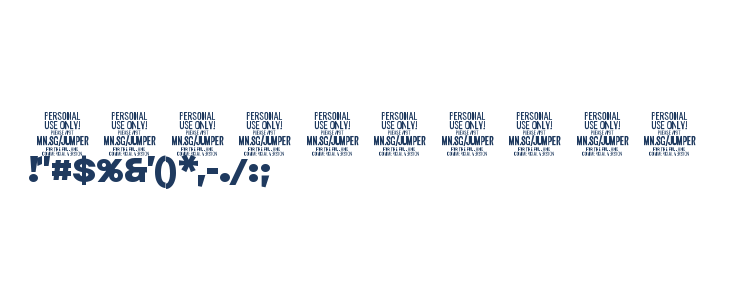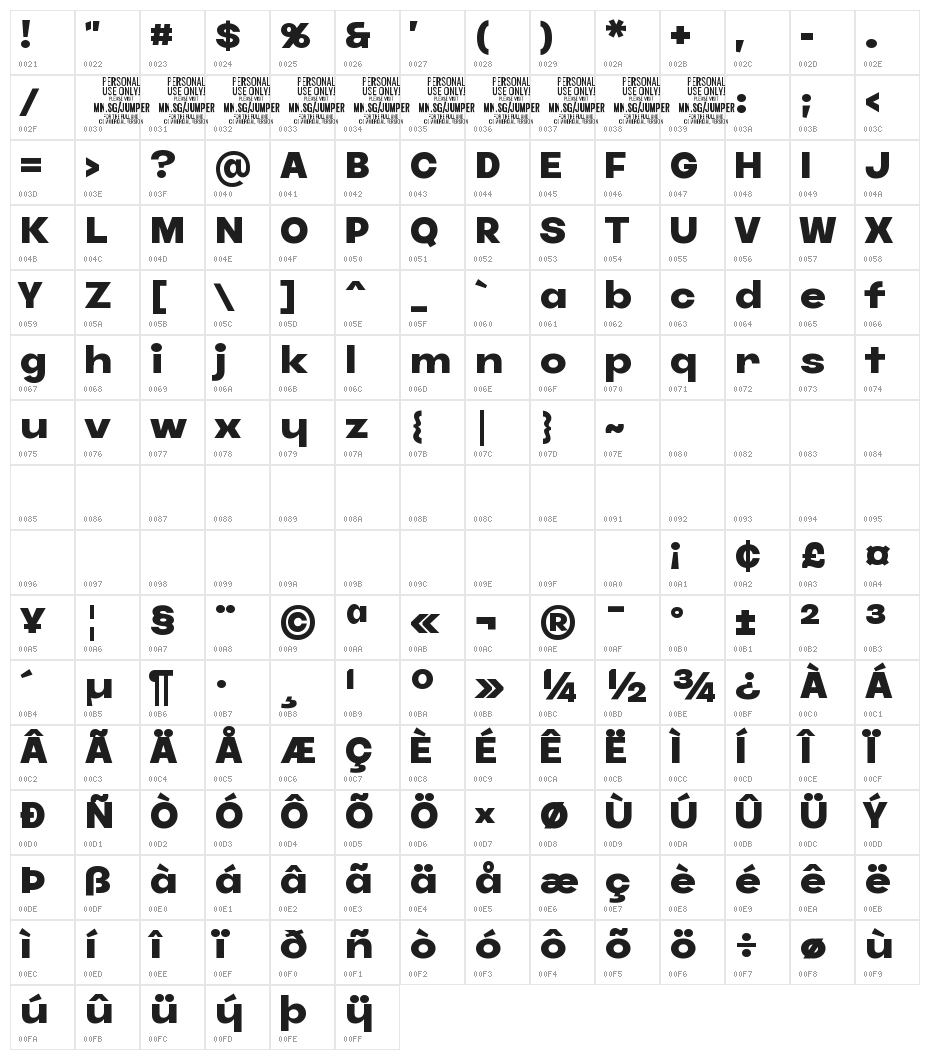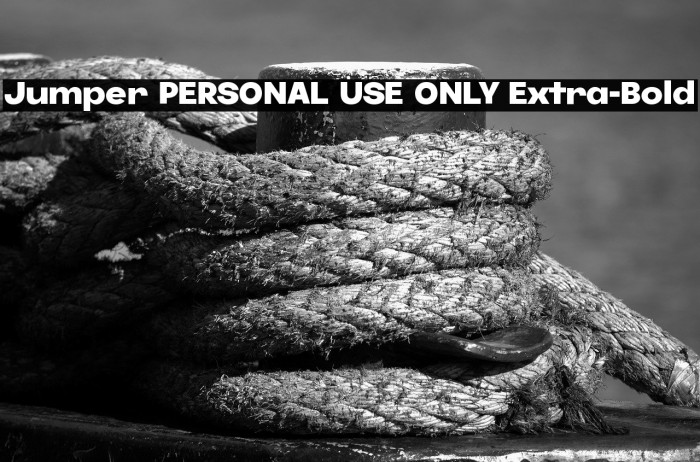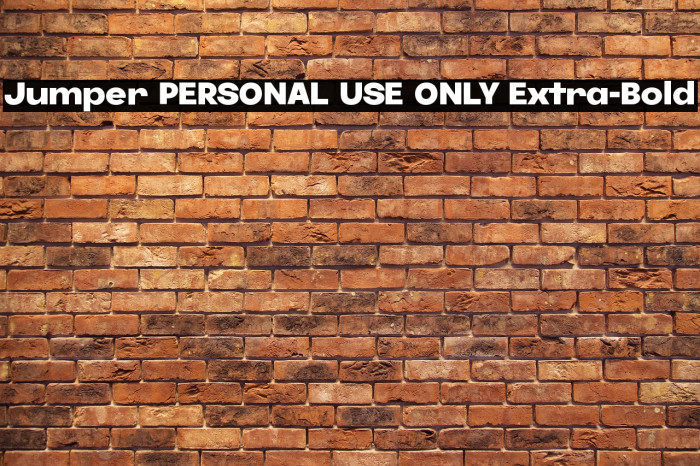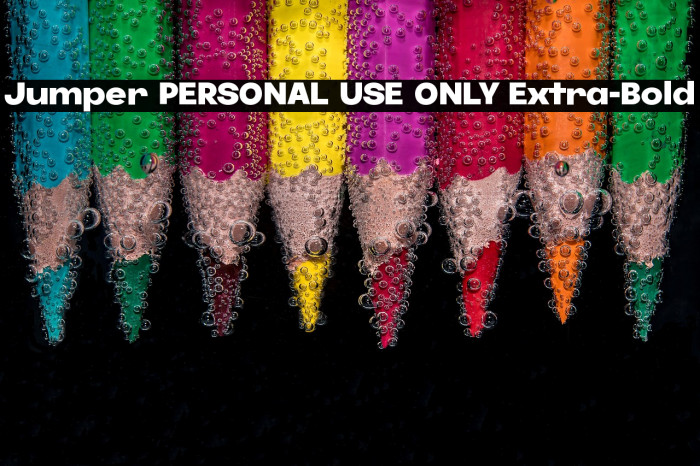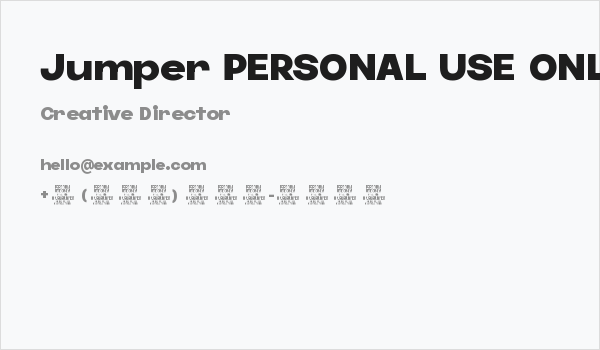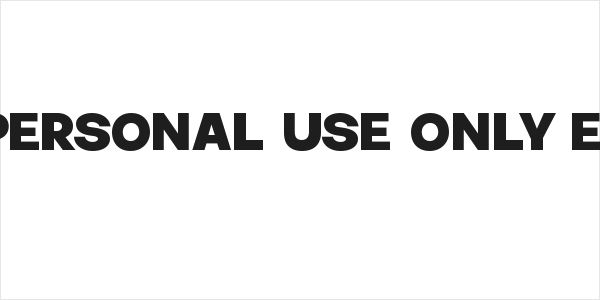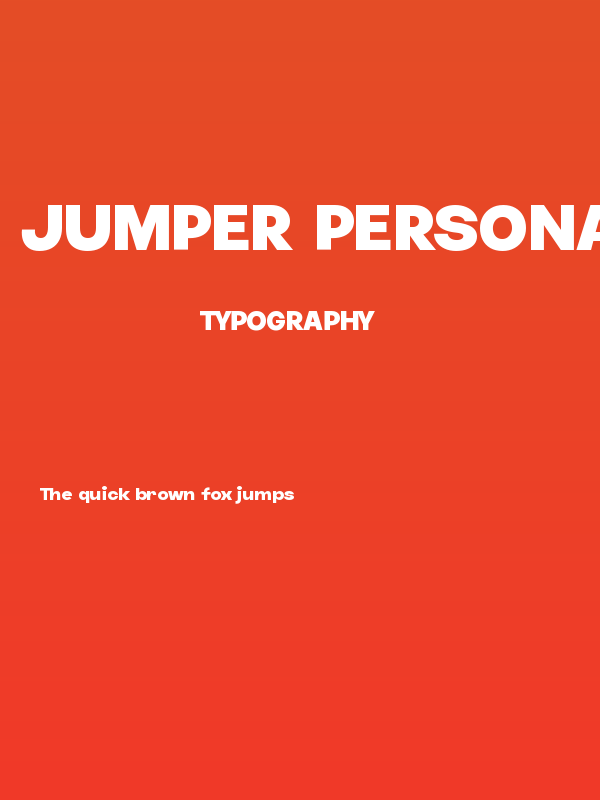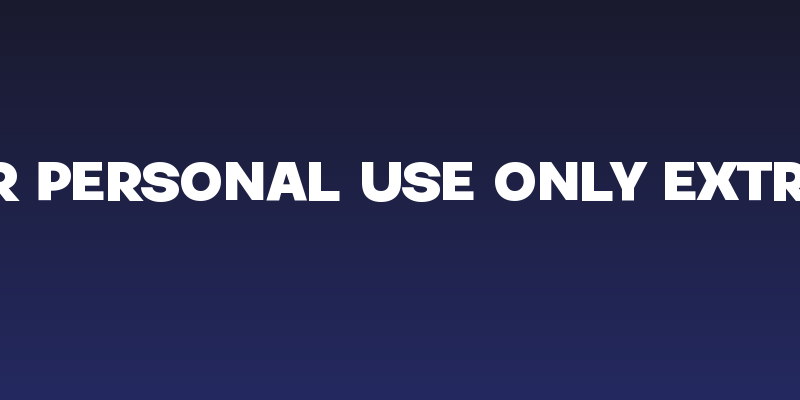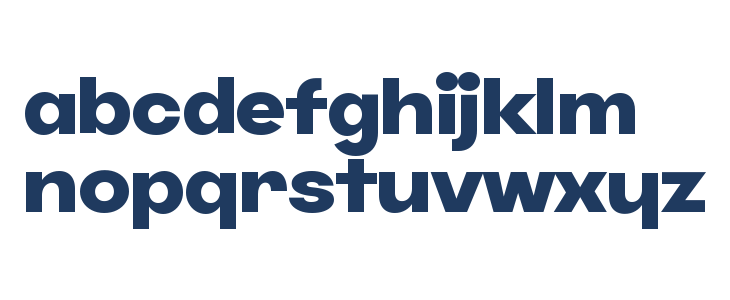
Jumper PERSONAL USE ONLY Extra-Bold Font
Jumper PERSONAL USE ONLY Extra-Bold Description
This font features a bold and impactful design, characterized by thick, uniform strokes that convey strength and modernity. The uppercase and lowercase letters maintain a consistent weight, providing a cohesive look across all characters. The geometric shapes of the letters give it a clean and structured appearance, making it ideal for attention-grabbing headlines. The numerals and special characters are equally bold, ensuring they stand out in any context. This font's simplicity and clarity make it versatile for various design applications.